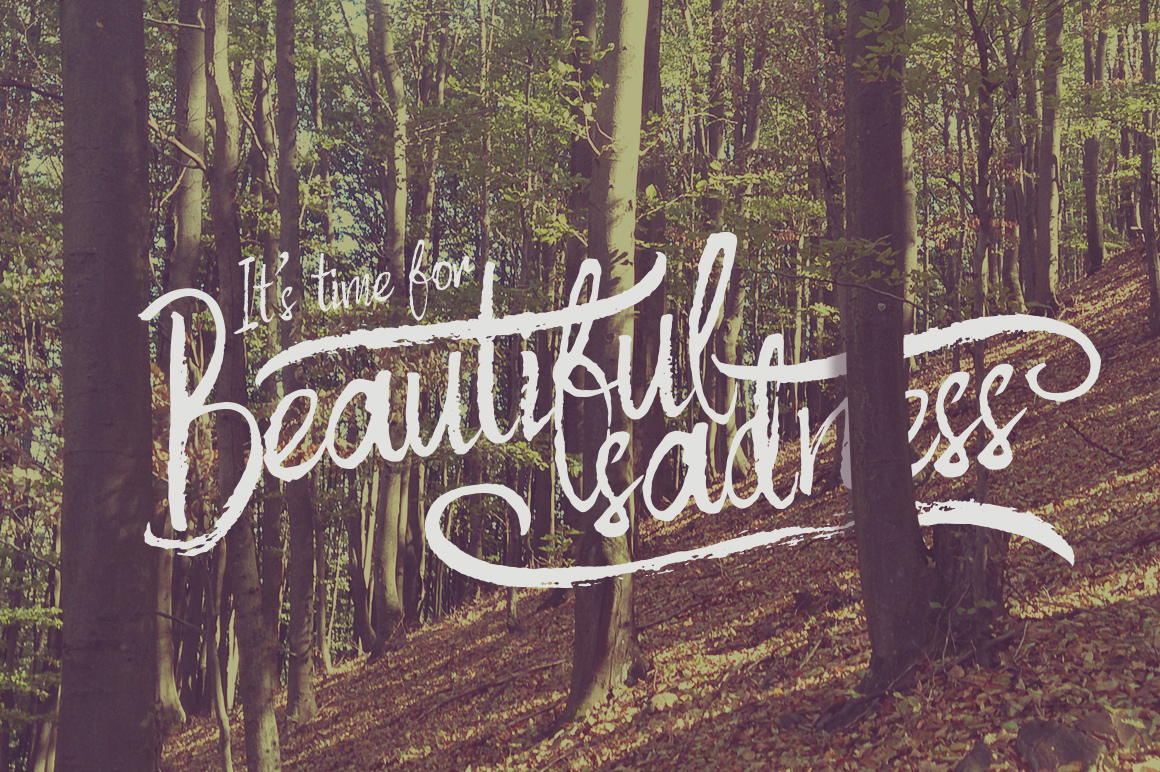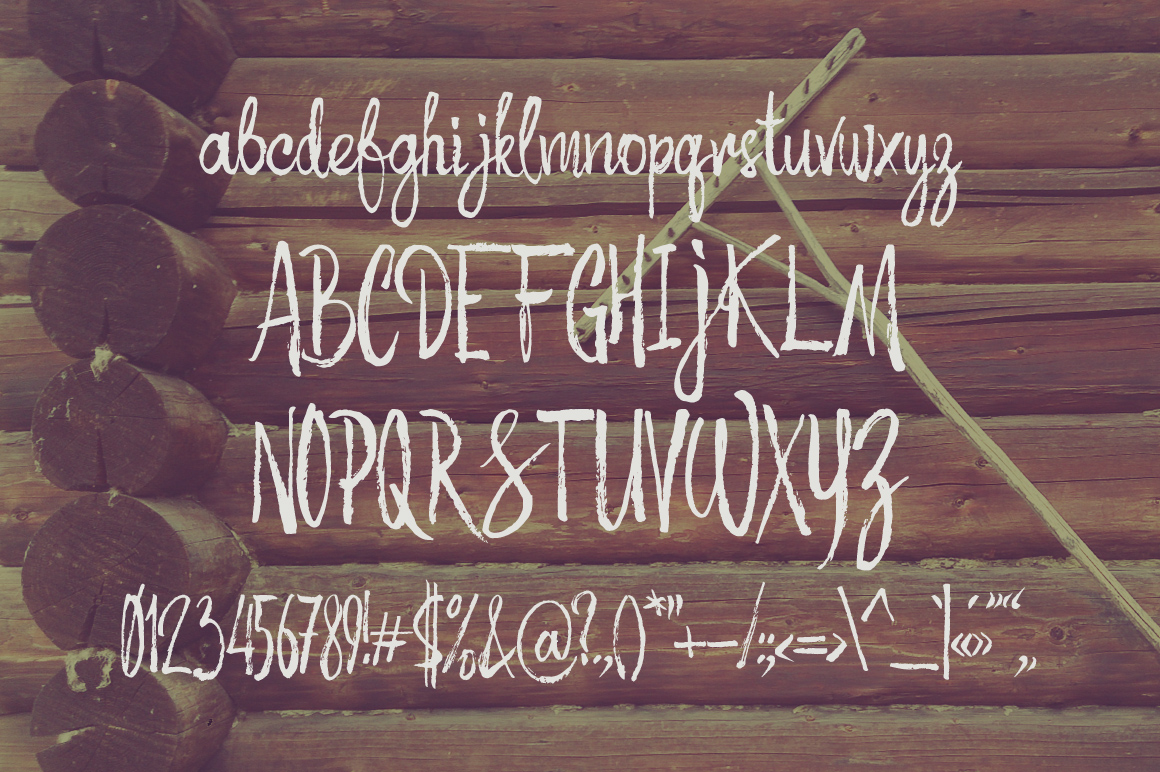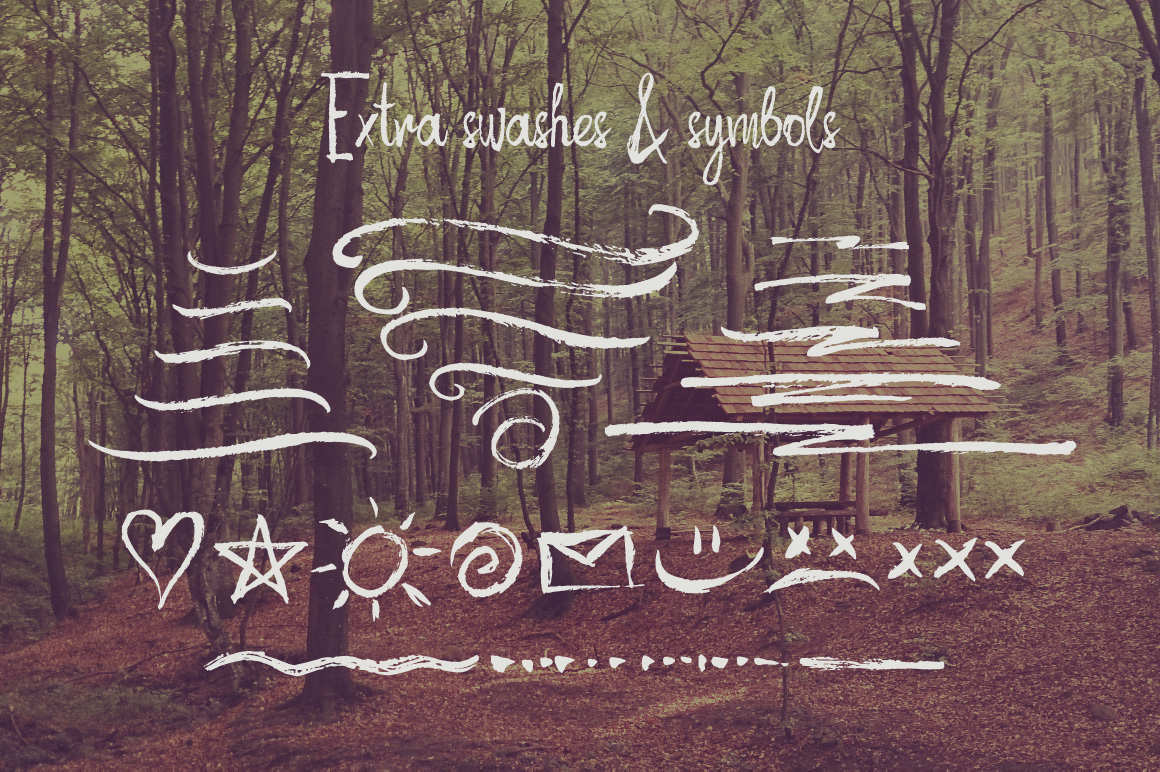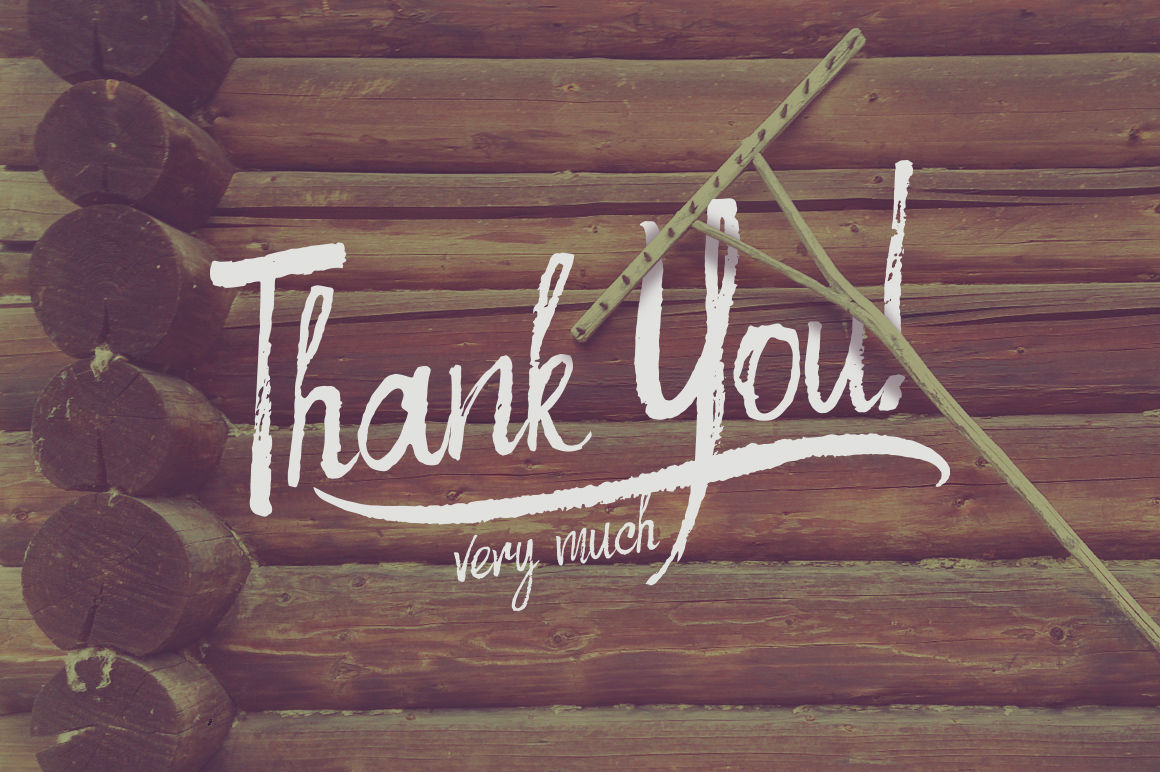
Introducing Autumn Feel Font: A Hand-Drawn Masterpiece for Your Designs
As the seasons change and autumn leaves start to fall, designers and crafters are on the lookout for fonts that capture the essence of this cozy time of year. Look no further than the Autumn Feel font, a hand-drawn masterpiece created with a dry brush to give your designs a warm, organic feel. In this article, we’ll dive into the details of this beautiful font and explore its features, uses, and benefits.
The Story Behind Autumn Feel Font
Autumn Feel font is a labor of love, carefully crafted with a dry brush to give it a unique, hand-drawn texture. The font’s creator aimed to capture the imperfections and quirks of traditional brush lettering, resulting in a font that feels both rustic and refined. With its varied letterforms and dynamic strokes, Autumn Feel font is perfect for adding a touch of autumnal charm to your designs.
Autumn Feel Font Features
So, what sets Autumn Feel font apart from other fonts? Here are some of its key features:
- Hand-drawn with a dry brush: Giving the font a unique, organic texture that’s perfect for autumn-themed designs.
- Comes with an extras font (Autumn Feel Extras): Containing various swashes and dynamic strokes to help you add flair to your designs.
- Varied letterforms: Each letter has a unique feel, adding to the font’s hand-drawn charm.
- Dynamic strokes: Giving your text a sense of movement and energy.
Uses for Autumn Feel Font
Autumn Feel font is incredibly versatile, making it suitable for a wide range of design projects. Here are some ideas to get you started:
- Autumn-themed designs: From harvest-themed posters to cozy fall party invitations, Autumn Feel font is perfect for adding a touch of seasonal charm.
- Crafting and scrapbooking: Add a personal touch to your scrapbook pages or craft projects with this beautiful, hand-drawn font.
- Branding and packaging: Use Autumn Feel font to add a rustic, earthy feel to your brand’s packaging and marketing materials.
- Social media graphics: Stand out on social media with eye-catching graphics featuring Autumn Feel font.
Benefits of Using Autumn Feel Font
So, why choose Autumn Feel font for your designs? Here are some benefits to consider:
- Unique texture: The font’s hand-drawn texture adds a level of depth and interest to your designs.
- Easy to read: Despite its hand-drawn nature, Autumn Feel font remains highly legible, making it perfect for body text and headlines.
- Customizable: With the extras font, you can add swashes and dynamic strokes to give your text a personal touch.
- Time-saving: No need to spend hours creating your own hand-drawn font – Autumn Feel font is ready to use straight out of the box.
Tips for Using Autumn Feel Font
To get the most out of Autumn Feel font, here are some tips to keep in mind:
- Experiment with colors: Autumn Feel font looks great in warm, earthy tones, but don’t be afraid to try it out in other colors too.
- Mix and match: Combine Autumn Feel font with other fonts for a unique, layered look.
- Play with swashes: Use the extras font to add dynamic swashes and strokes to your text.
- Keep it simple: Don’t overcomplicate your design – sometimes, less is more, and Autumn Feel font can shine on its own.
Autumn Feel font is a beautiful, hand-drawn masterpiece that’s perfect for adding a touch of autumnal charm to your designs. With its unique texture, varied letterforms, and dynamic strokes, this font is sure to become a staple in your design toolkit. Whether you’re a designer, crafter, or DIY enthusiast, Autumn Feel font is a great choice for any project that needs a little seasonal magic.